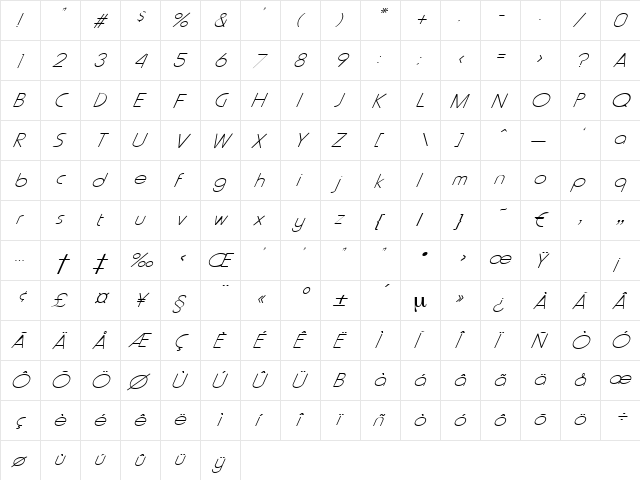
GiovanniItalic Regular Font Preview
GiovanniItalic Regular
Design Context for GiovanniItalic Typeface
GiovanniItalic takes a measured approach to typography — its balanced proportions and neutral character make it a reliable workhorse for both digital and print work. The slanted form adds forward momentum and visual energy.